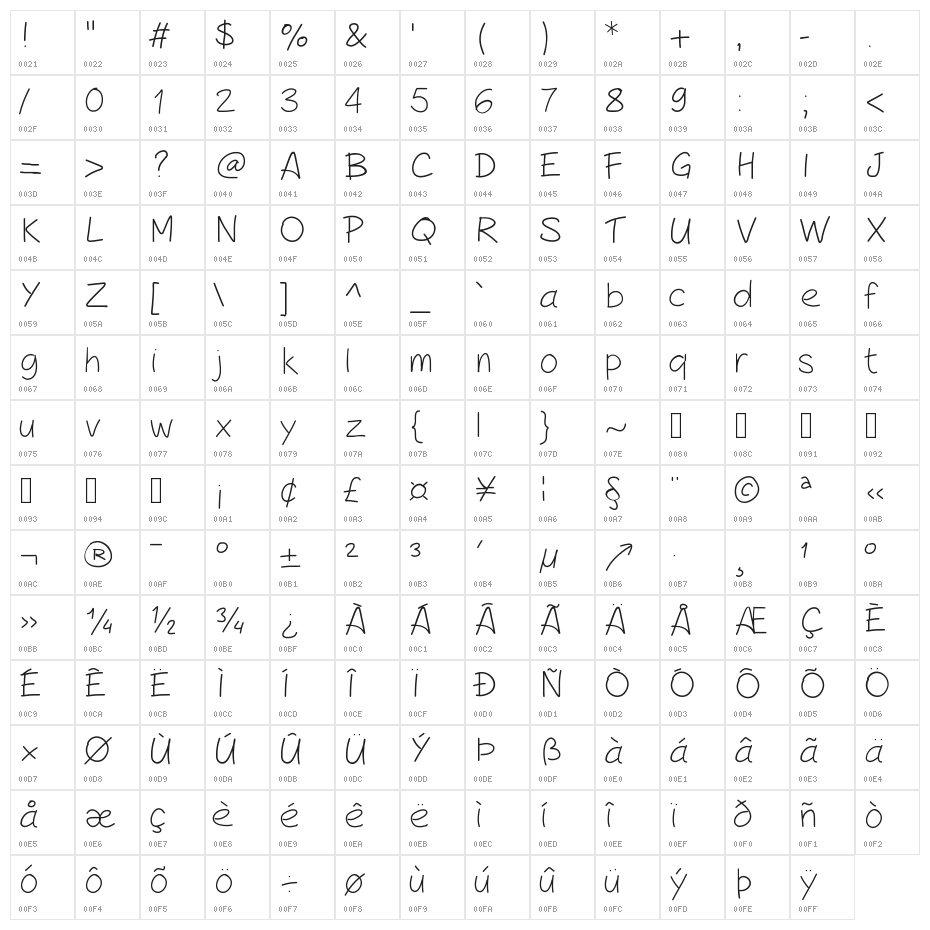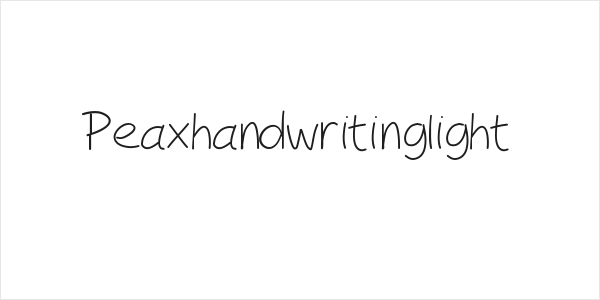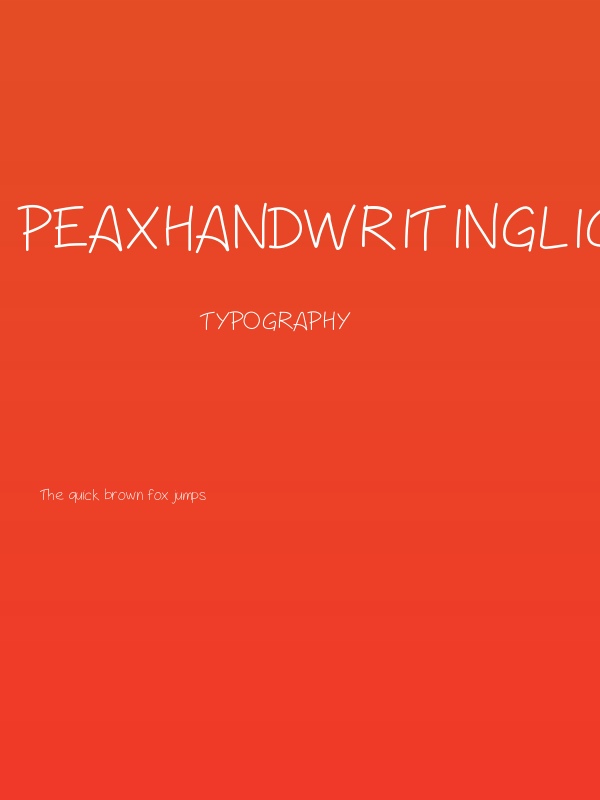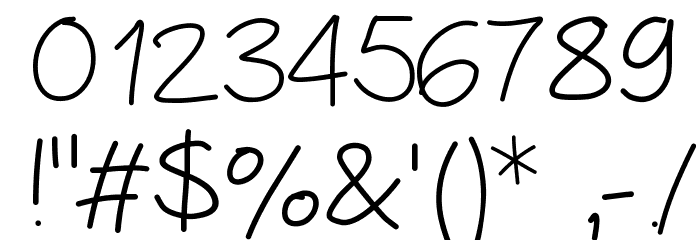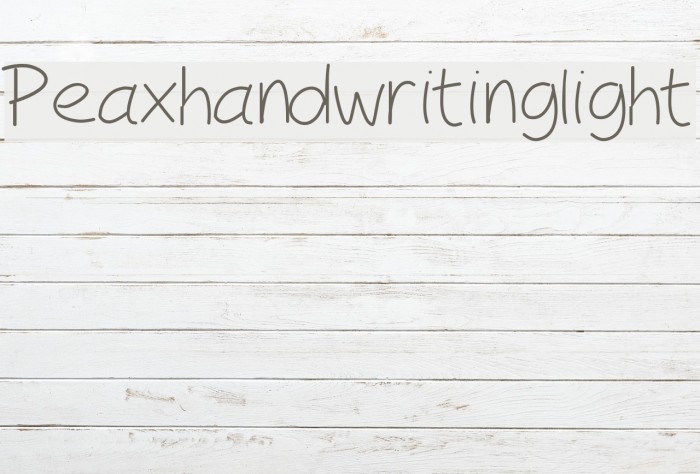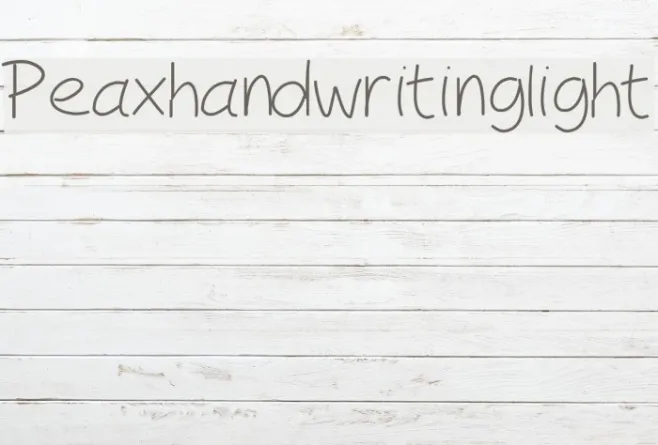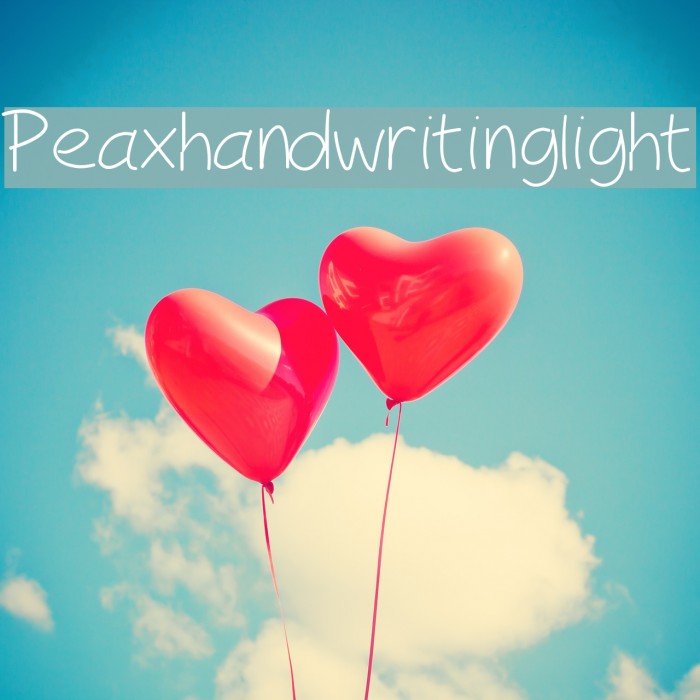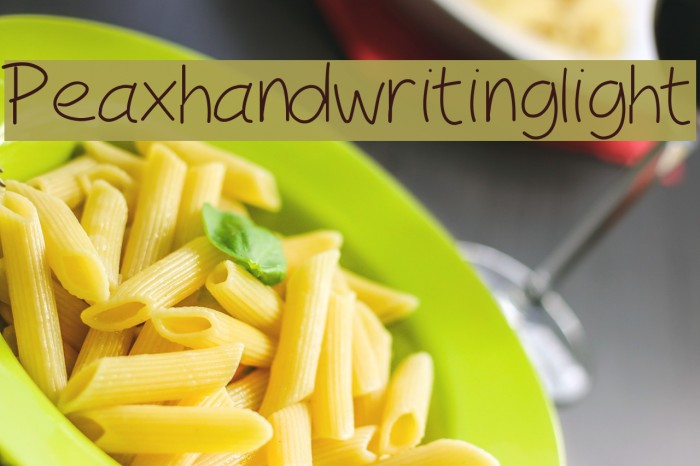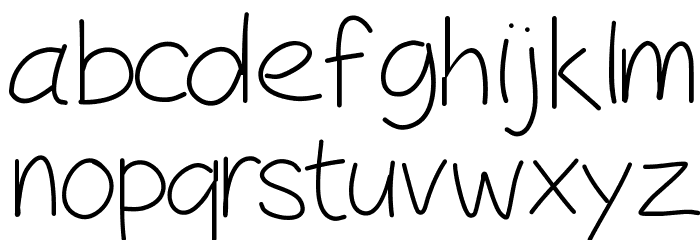
Peaxhandwritinglight Font
Peaxhandwritinglight Description
This font exudes a casual and playful handwritten style, characterized by its smooth, flowing lines and slightly irregular letterforms that mimic natural handwriting. The uppercase and lowercase letters maintain a consistent height, giving it a balanced appearance. The numerals and special characters are crafted with the same informal charm, making them blend seamlessly with the alphabet. The overall design is light and airy, with a friendly and approachable feel, suitable for projects that require a personal touch. Its simplicity and clarity make it easy to read, while the subtle quirks in each letter add a unique personality.
| Overall Style | Casual |
| Use Case | Logos, Headlines, Invitations |
| Proposed Projects | Ideal for greeting cards, personal notes, invitations, and casual branding projects. |